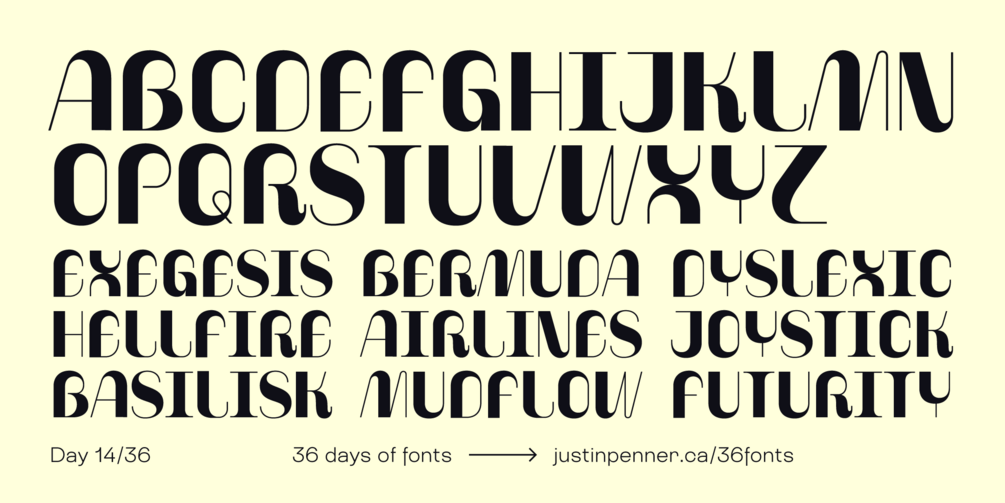
36 Days of Fonts: Day 14
Space Highway
I can't get off the sci-fi train – I just love the lettering styles from old science fiction book covers and movie posters. This one has no specific reference material, as I was just sketching and thinking about how to make the strokes and curves of a letter look .